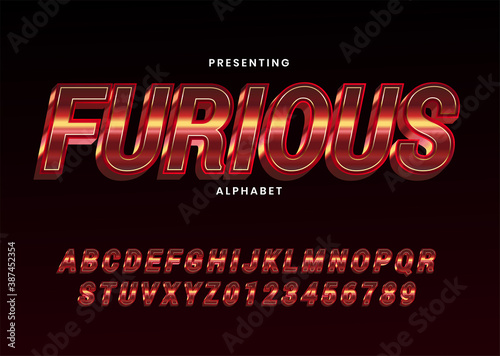
Metallic font alphabet template. Modern Italic Alphabet Font. Typography furious style fonts for movie technology, sport, motorcycle, racing logo design.